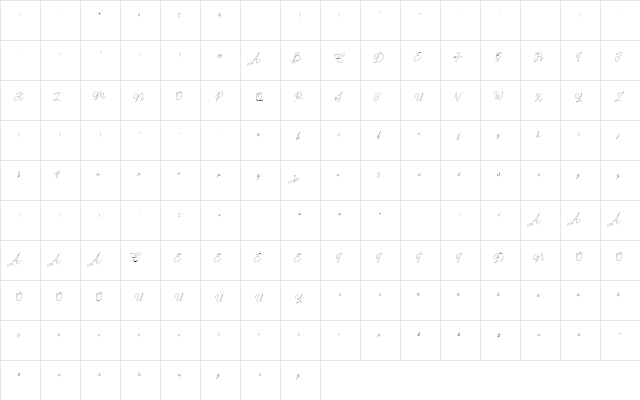
Claire Script Regular
Design Context for Claire Script Typeface
Claire Script flows with the natural rhythm of handwritten lettering, making it ideal for designs that call for warmth and personal expression.
Font Pairing: Combine Claire Script with a simple geometric sans for maximum contrast — the tension between flowing curves and clean structure is a classic typographic pairing.
Pro Tip: Pair Claire Script with a clean sans-serif for supporting text. The contrast between fluid script and geometric structure creates an elegant typographic hierarchy.